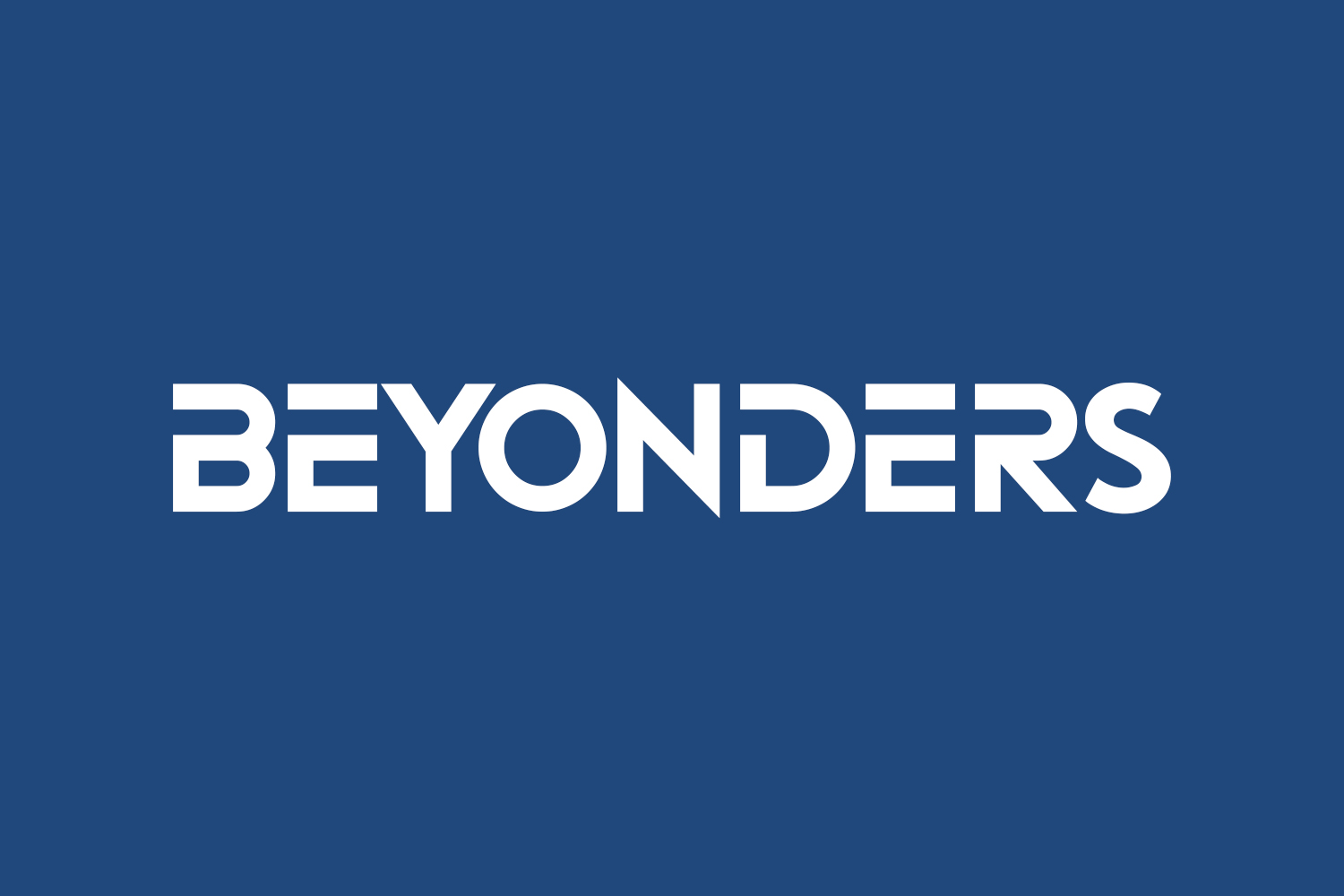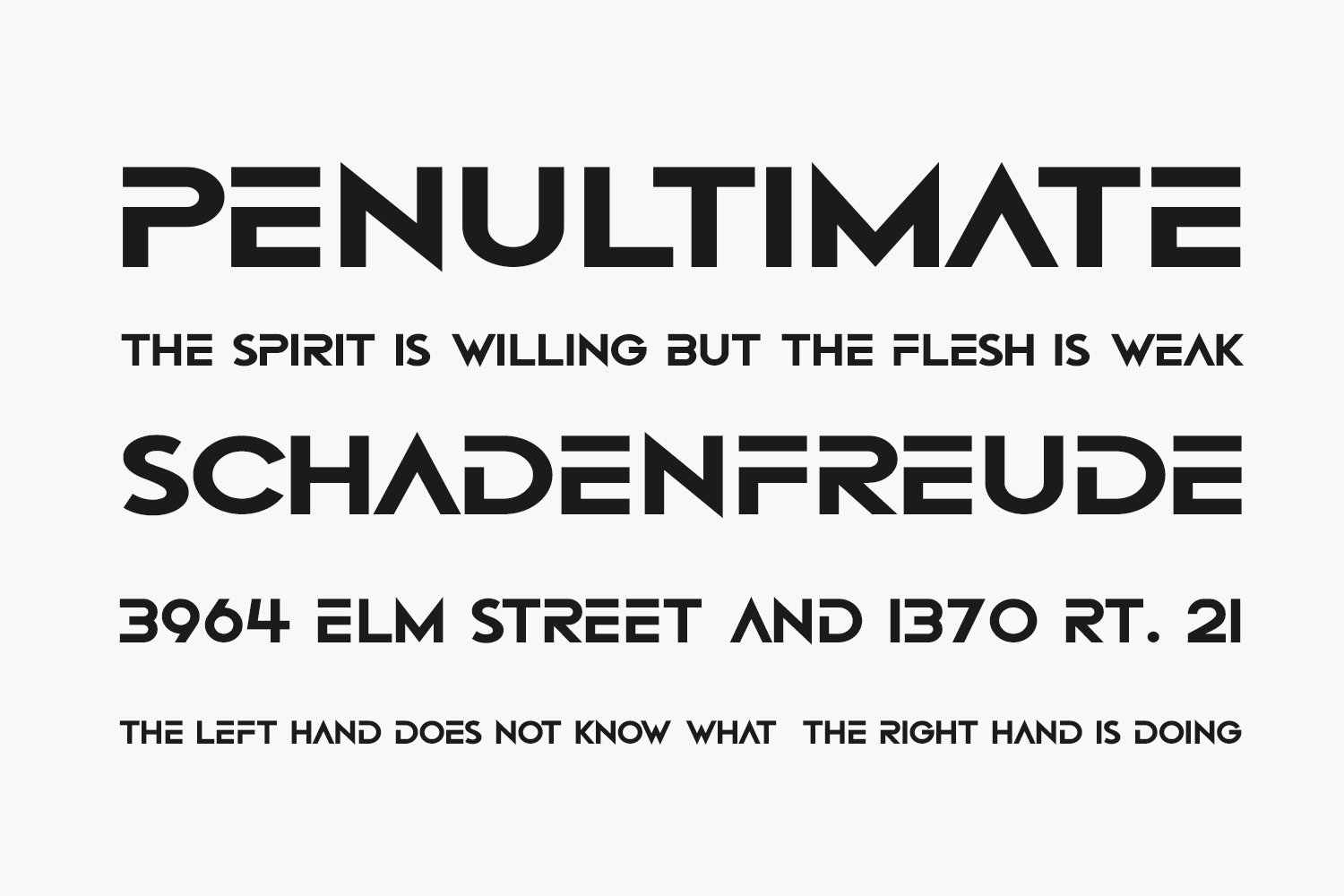
Beyonders Free Font Family is a slick sci-fi font in a modern, high-tech style. Perfect for alien encounters, tech related themes, electronic music presentations and general everyday use. Beyonders Free Font Family is free for personal use only. Please purchase the full version for commercial use.
Designed by Hawtpixel